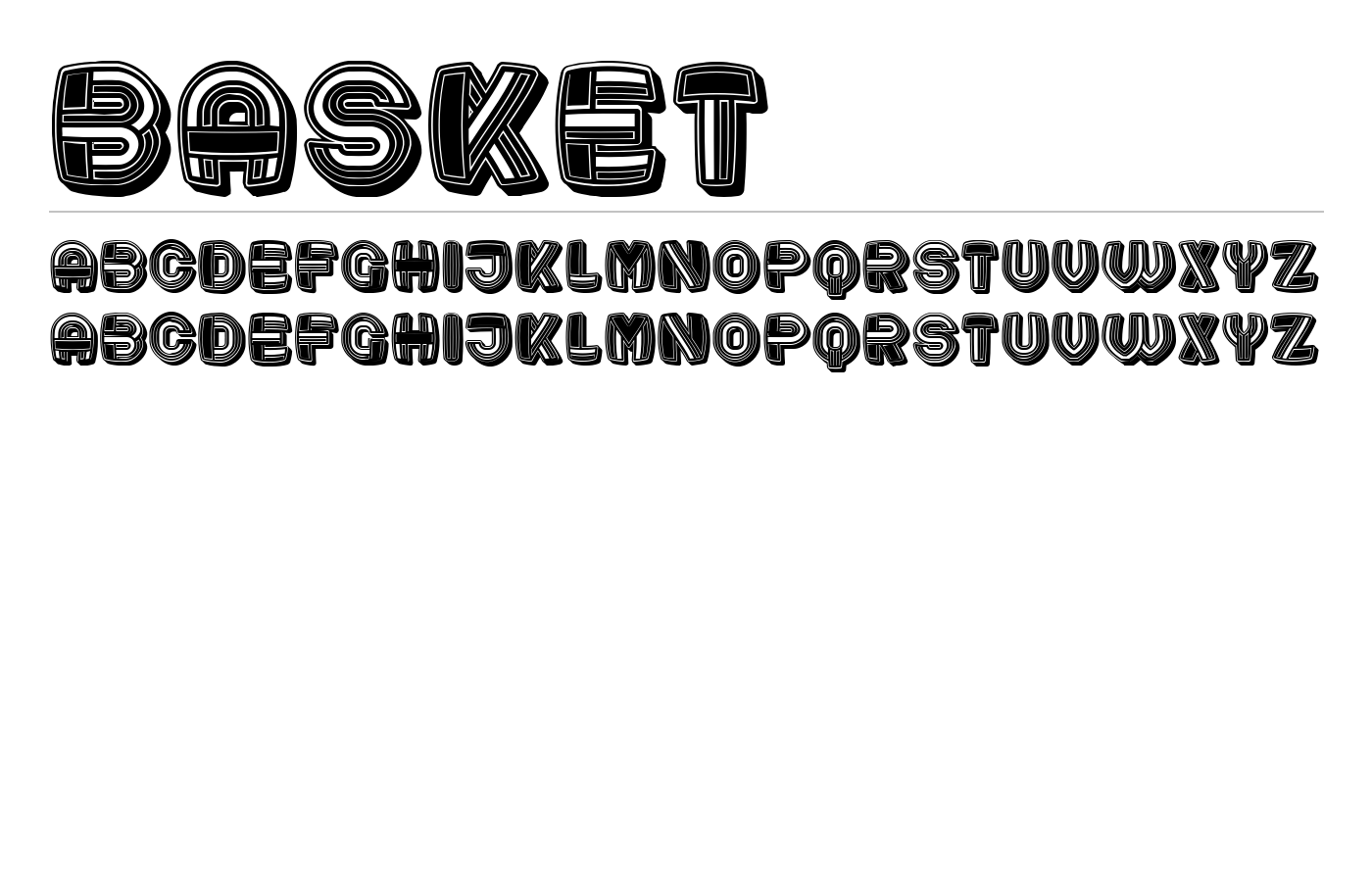
Basket Font is a bold, playful display typeface featuring chunky, layered letterforms with a fun, dimensional outline style. Its wide, rounded shapes and double-line details create a lively, retro vibe perfect for eye-catching headlines, posters, and branding that want to convey energy and creativity. This font works especially well for designs that need a distinct, friendly personality and strong visual presence.
Basket Font
About Basket Font